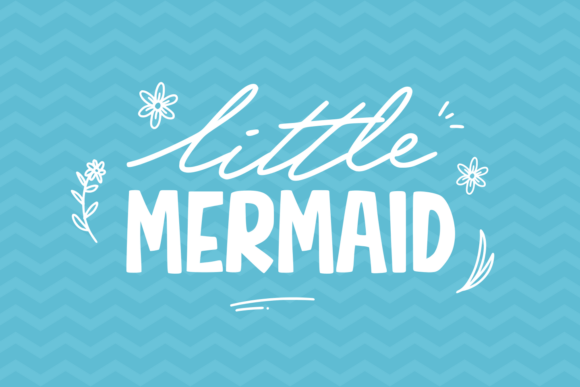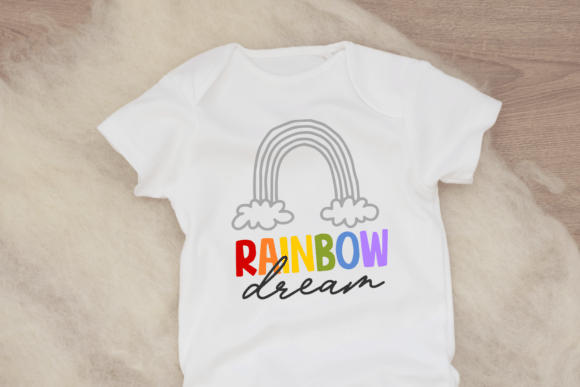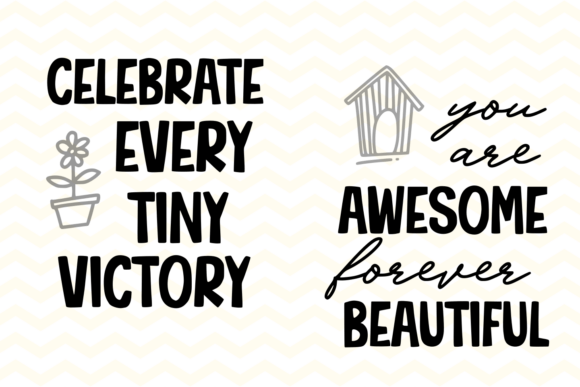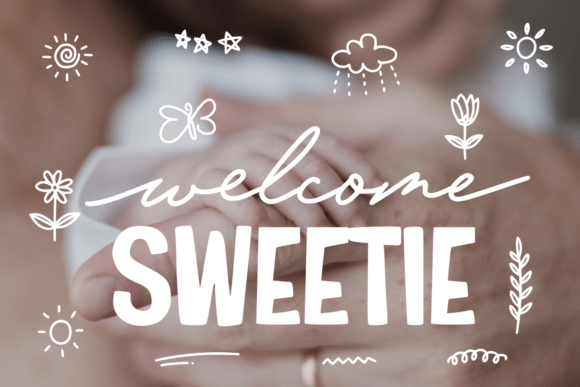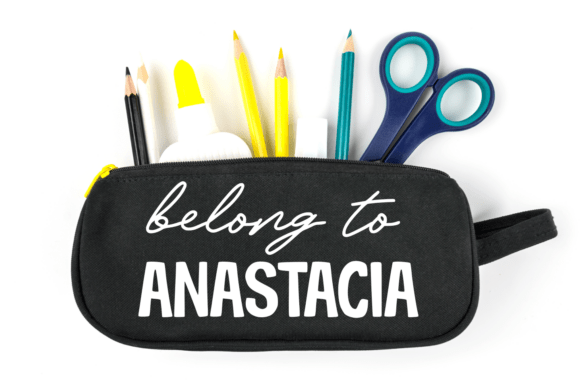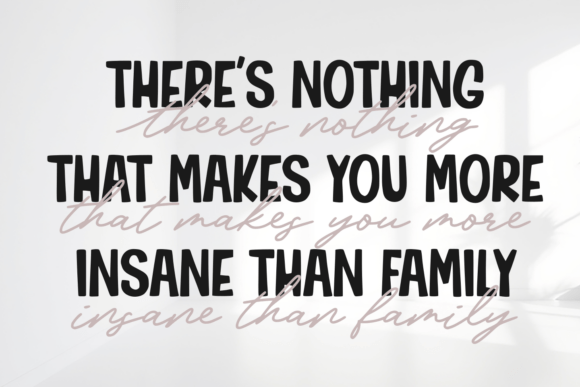
Welcome the Sunshine into Your Designs
There’s something special about the first days of spring – the air is filled with the sweet scent of blooming flowers, the sun shines brighter, and the world feels full of endless possibilities. As designers, we often find inspiration in these moments of renewal and joy. And what better way to capture that feeling than with a font that embodies the warmth and playfulness of the season?
Meet the Hello Spring Trio Font, a delightful collection of three matching styles that bring a cheerful charm to any creative project. With its Sans, Script, and Doodle components, this font family is perfect for designers looking to add a touch of whimsy and personality to their work. Whether you’re creating greeting cards, social media posts, or packaging, the Hello Spring Trio Font is sure to bring a fresh and joyful vibe to your designs.
Hello Spring Trio Font Key Features
- Unique Characteristics: The font features a unique blend of modern and classic elements, with flowing curves and geometric shapes, making it perfect for creating a sense of spring and renewal.
Hello Spring Trio Font Review
I was excited to dive into the Hello Spring Trio Font, and overall, I found it to be a sweet and charming addition to any design project. ✨ One thing that stands out is the unique blend of spring-inspired elements, from the delicate flowers to the stylized leaves. It’s perfect for creating a sense of renewal and growth in your designs.
Another great aspect is the font’s versatility – it comes in three different styles: Hello Spring, Spring Florals, and Spring Greens. ✨ This allows you to mix and match to create a look that suits your project’s tone and style. The font is also highly customizable, making it easy to adjust to your specific design needs.
While I love the Hello Spring Trio Font, there are a few limitations to consider: ⚠️
- Some users may find the font a bit too cutesy or over-the-top, which could detract from a more serious or professional design.
- The font’s delicate nature can make it difficult to read at very small sizes or in bold, dark backgrounds.
- The customization options can be overwhelming, especially for beginners. Be prepared to spend some time experimenting to get the look you want.
Overall, I think the Hello Spring Trio Font is a great choice for designers looking for a fresh, spring-inspired aesthetic. With a little creativity and patience, you can create stunning designs that showcase the font’s unique charm.
The Hello Spring Trio Font is perfect for:
- Spring-themed designs, such as Easter cards and flower arrangements.
- Botanical illustrations and garden designs.
Remember to pair the Hello Spring Trio Font with complementary colors and designs to create a cohesive look.